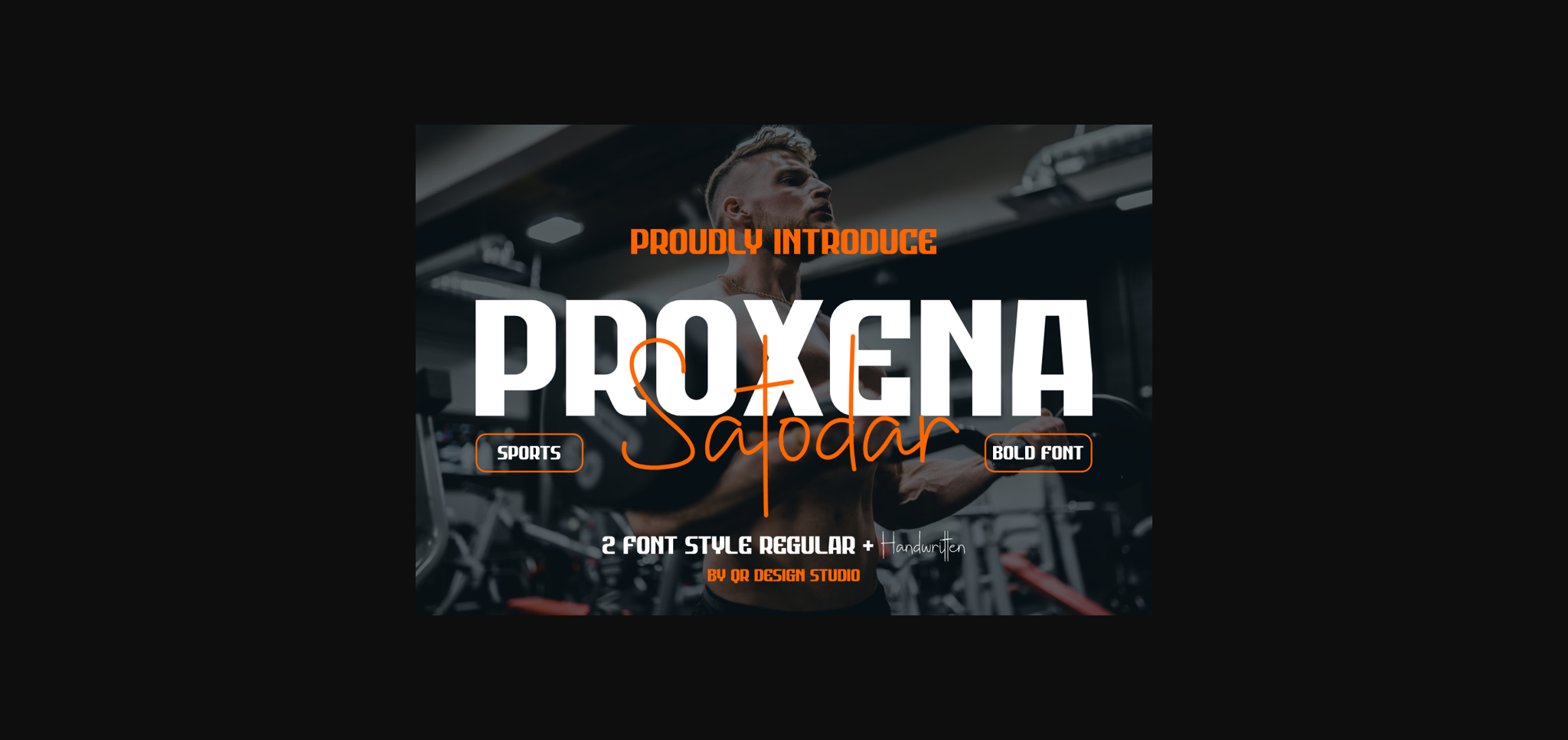
About Proxena Satodar Font
Proxena Satodar Font is a bold and authentic display font.
The font is suitable for any branding project like logos, sports, and many more.